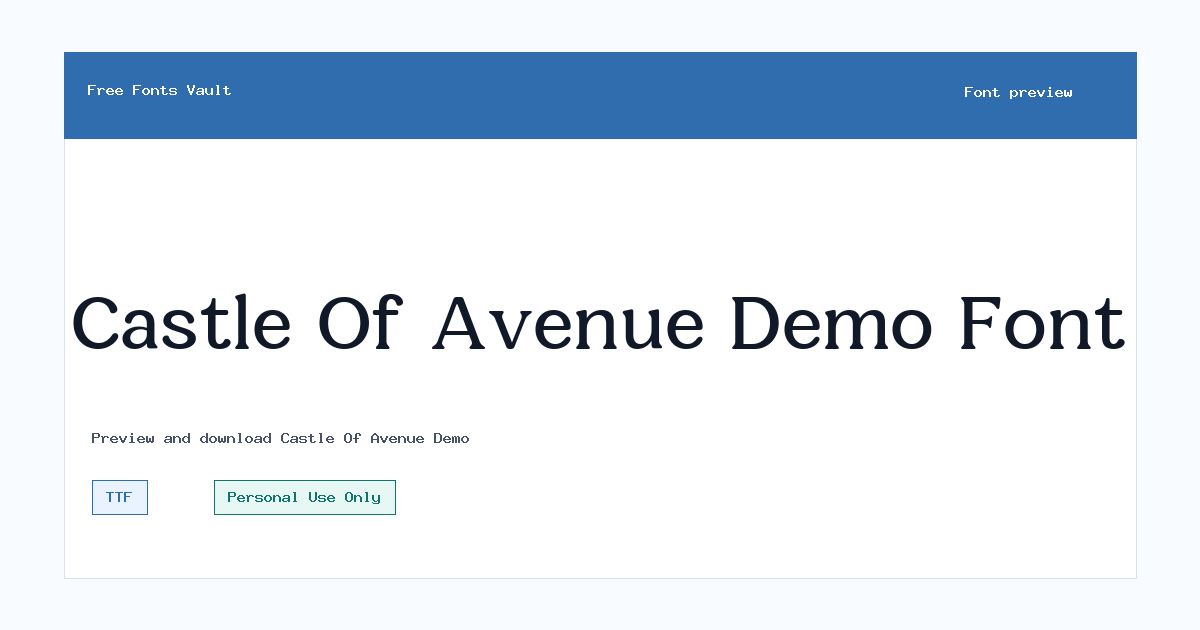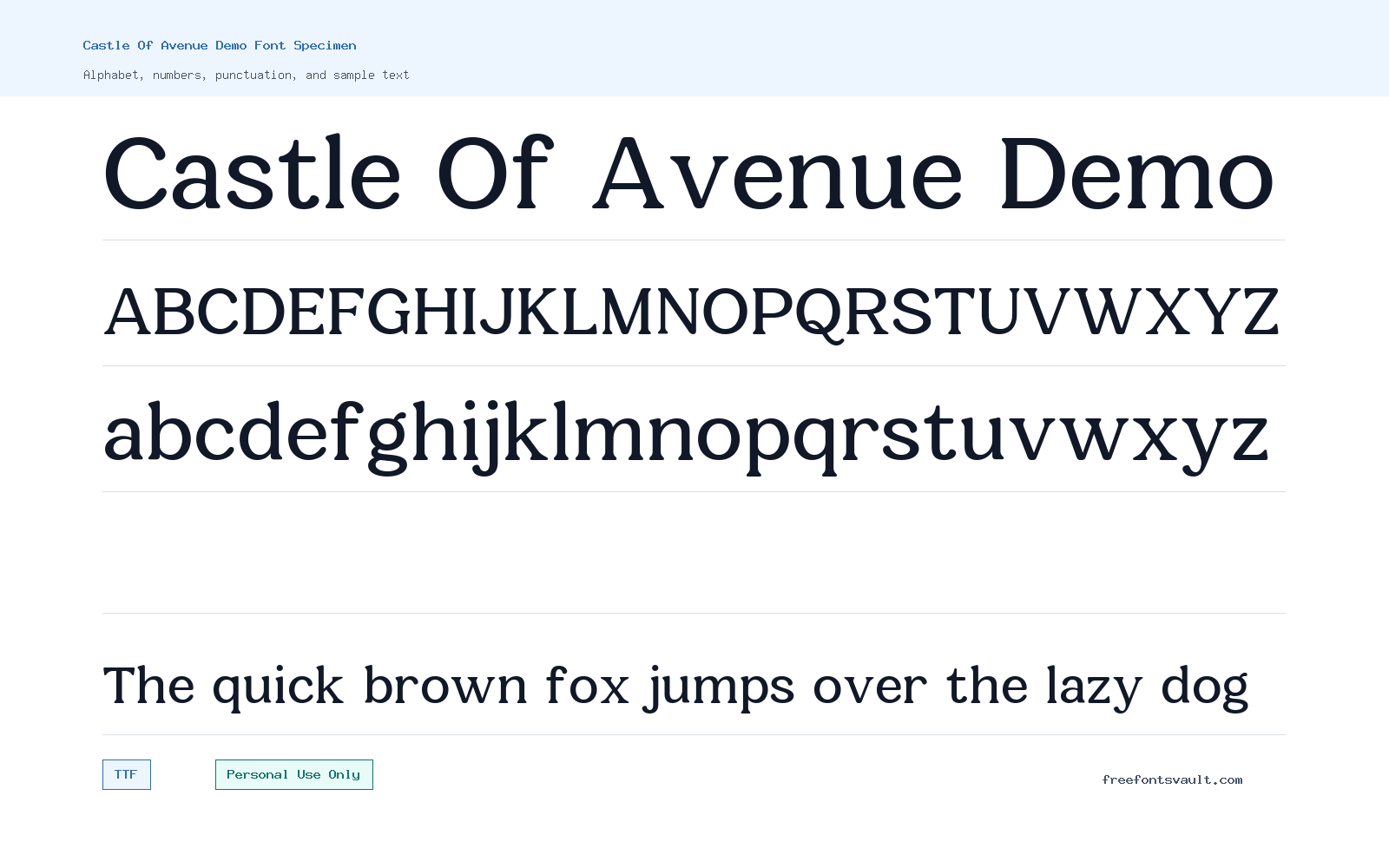
Castle Of Avenue Demo
Castle Of Avenue Demo font.
Castle Of Avenue Demo is a serif font with a polished display feel, made for short text that needs a refined first impression. It is best treated as a headline and branding font rather than a long-reading text face.
About Castle Of Avenue Demo
Castle Of Avenue Demo has the kind of serif structure that works well when the words are meant to stand out. Use it for names, titles, short brand lines, packaging-style mockups, event graphics, and poster headers where a classic serif mood fits the design. Because only the regular style is part of this font family page, the safest way to build hierarchy is through size, spacing, color, and layout rather than relying on multiple weights.
For logo work, test the exact wordmark before committing. Serif display fonts can look elegant in a single name or two-word lockup, but some letter combinations may need tracking changes or manual spacing. Try it in uppercase, title case, and lowercase if the preview supports those options. For posters and web mockups, keep it in larger sizes and pair it with a plain sans serif for body copy, navigation, captions, and small interface text. This keeps the design readable while letting Castle Of Avenue Demo carry the main visual tone.
- Serif display style that is most useful for headings, names, titles, and short pieces of text.
- Single-weight family page, making it simple to test but less flexible for complex typography systems.
- Works best when paired with a quieter body font instead of being used for dense paragraphs.
- Logo drafts and wordmark concepts
- Poster titles and event headings
- Brand mood boards
- Packaging mockups
- Social media graphics
- Website hero text
- Invitation-style headings
- Portfolio concept presentations
What kind of projects is this font good for?
It is best for short display text such as logo drafts, poster titles, brand mockups, invitations, packaging concepts, and website hero headings.
Can I use Castle Of Avenue Demo for body text?
It is not the best choice for long paragraphs. Use it for headings and pair it with a simpler font for body copy.